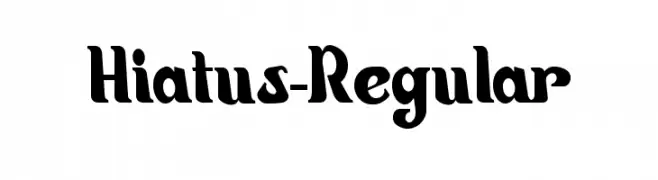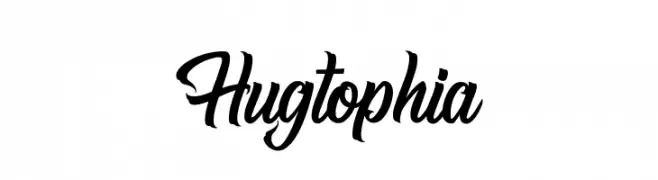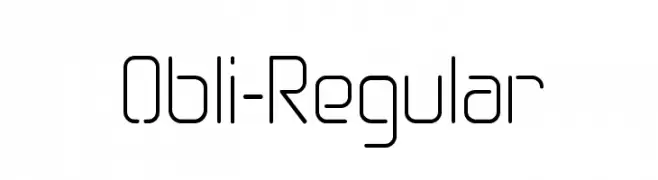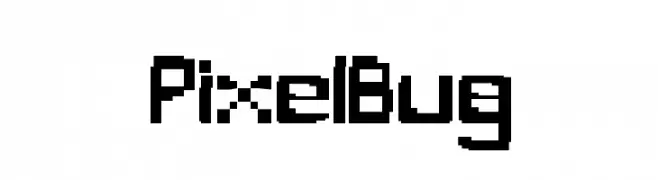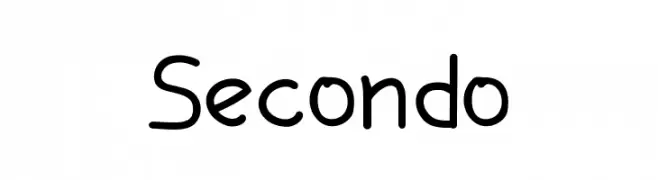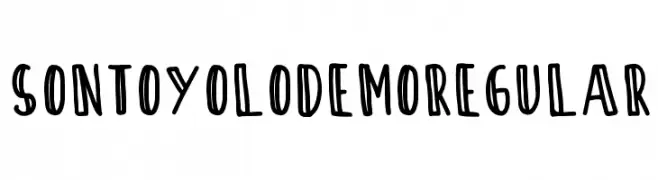
( Luc Mahler )
A bold, playful font with unique curves and sharp edges.
( Macul Inc )
A bold, expressive script font with elegant, flowing letterforms.
( Marco Aguayo )
A playful, rounded font with a casual and friendly style.
( Marivo - Marko Jovanovac - markojovanovac.com )
A sleek, modern font with geometric lines and rounded corners.
( Mathias Rue - www.mathiasrue.dk )
A dynamic, brush-style font with an informal, hand-drawn appearance.
( Maxime Tolbecq - www.mplusm.be )
A bold, modern font with a playful and slightly condensed style.
( Muhammad Hasan - www.behance.net/lemet )
A playful, hand-drawn font with bold strokes and a whimsical style.
( Perdana Kurniawan Arta - creativemarket.com/perdanakun )
A whimsical, decorative serif font with playful curls and loops.
( Peter Quini )
A pixelated, retro-style font with a blocky, digital appearance.
( Philipp Kampling - philipp-kampling.de/ )
A bold, geometric font with a futuristic and modular design.